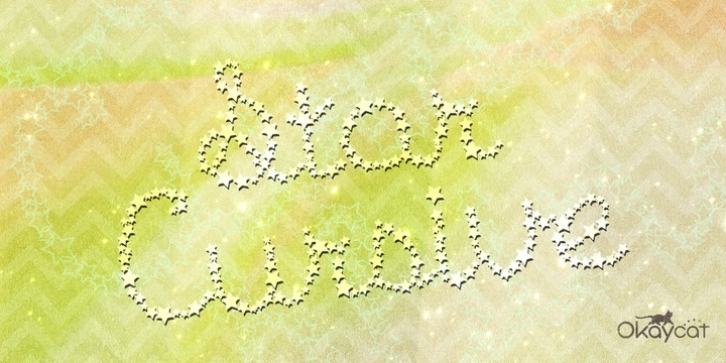
Star Cursive was designed by Natsuko Hayashida and published by Okaycat. Star Cursive contains 3 styles and family package options.
Star Cursive is a connected letter script which is full of stars! Float with the stars, drifting through the galaxy! Use this star font whenever sparkle, glamour or a touch of the stars is needed.
Star Cursive is extended, containing the full West European diacritics and a full set of ligatures, making it suitable for multilingual environments and publications.
· Star Cursive
· Star Cursive Bright
· Star Cursive Shine